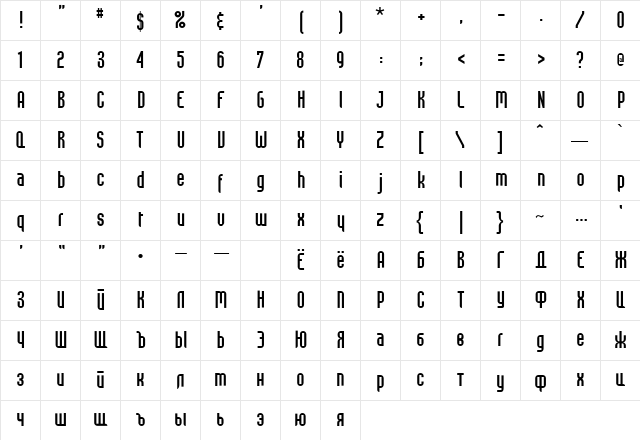
Complete ft13 Regular glyph index. Displaying only characters natively supported by ft13 Regular font.
ft13 is a composed and adaptable typeface that performs quietly and consistently across a wide range of design contexts.